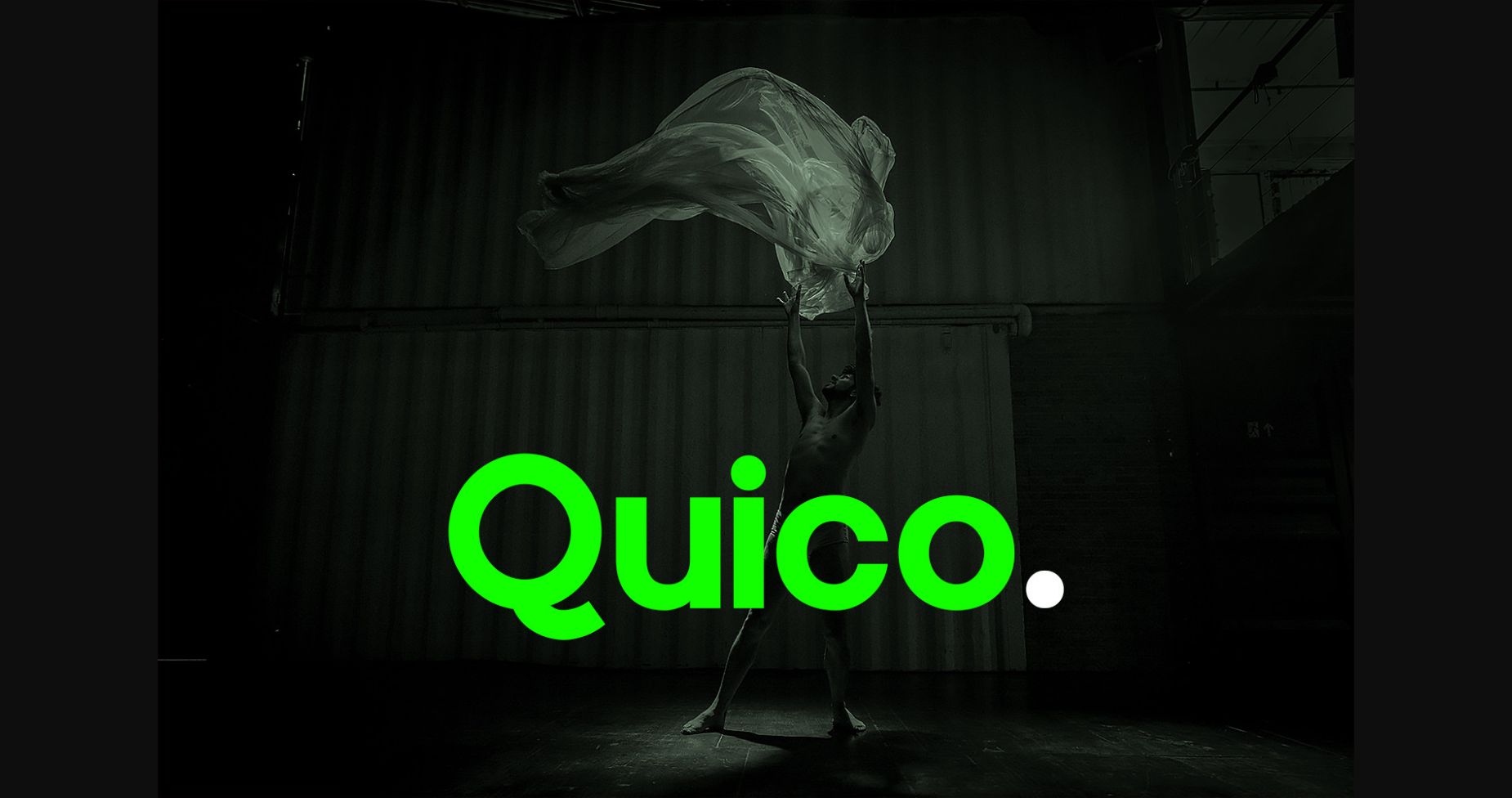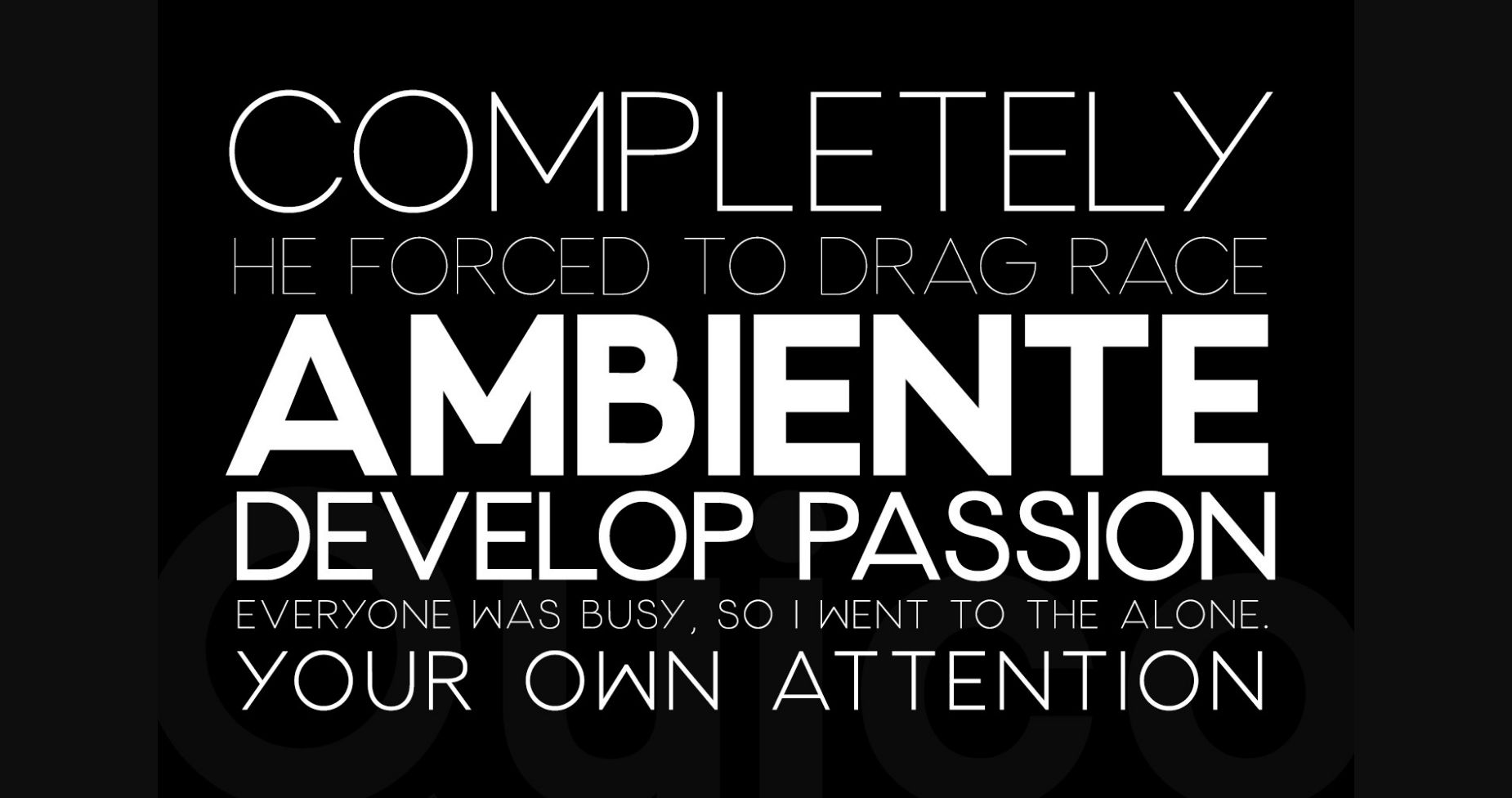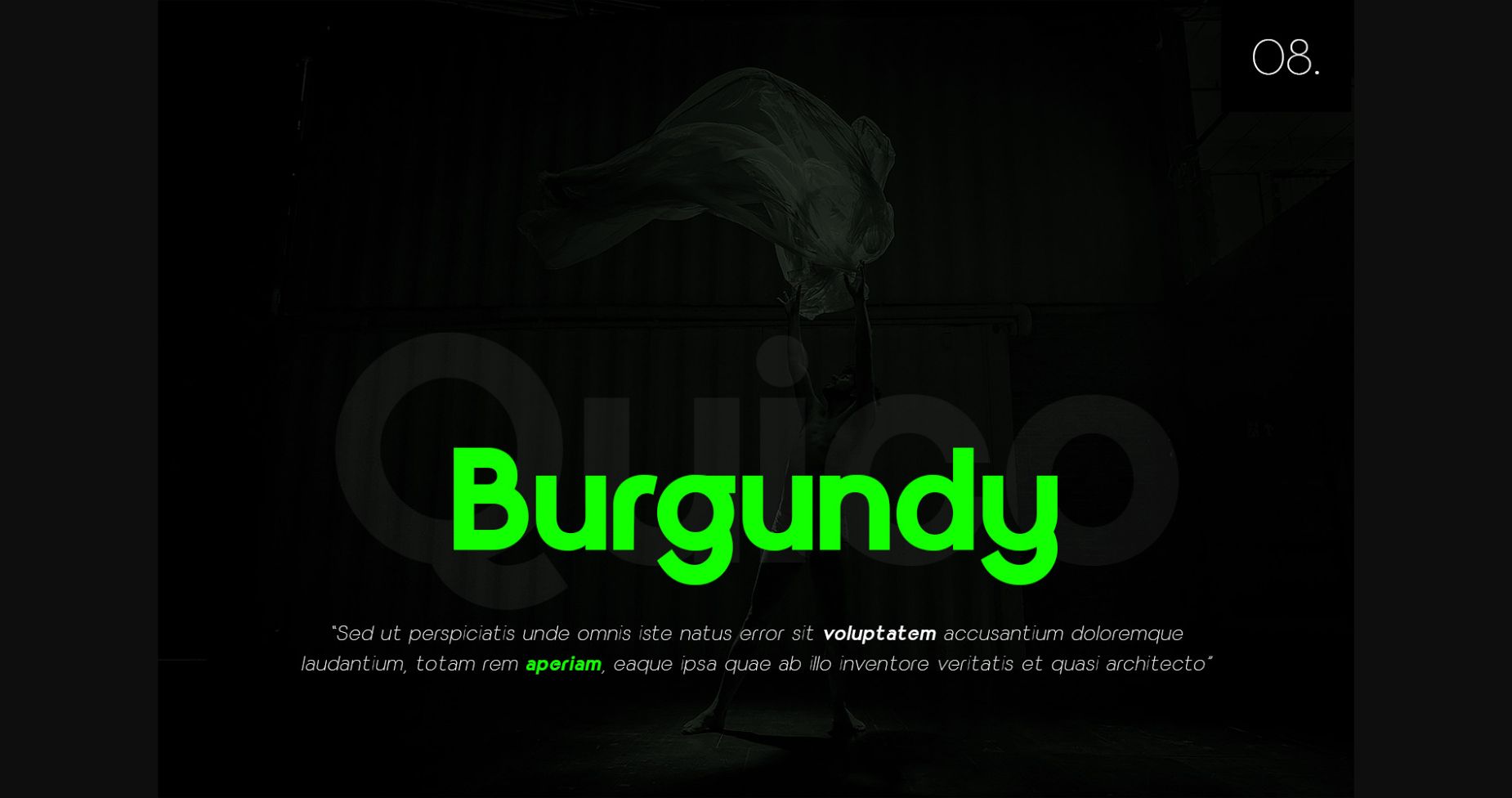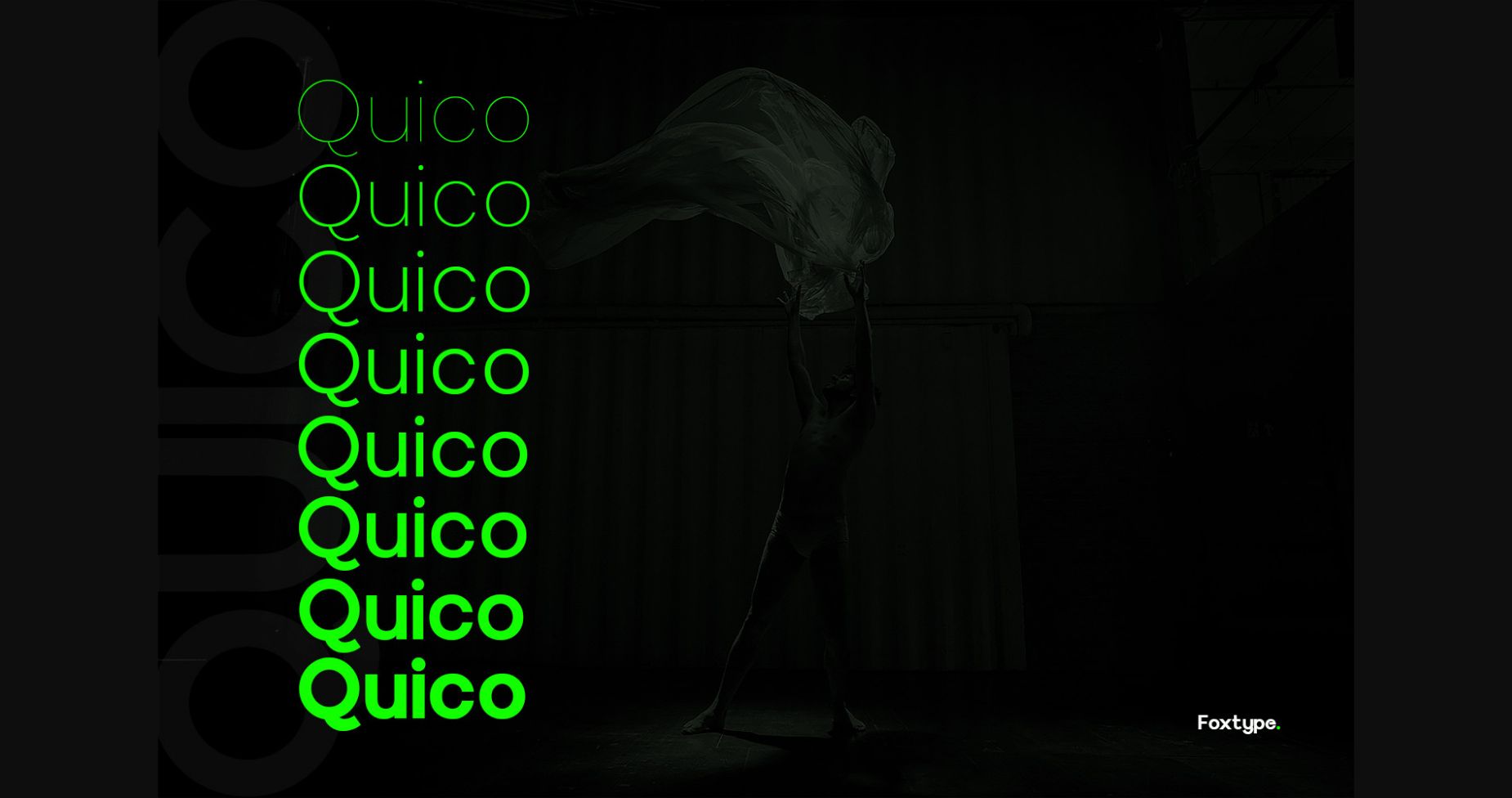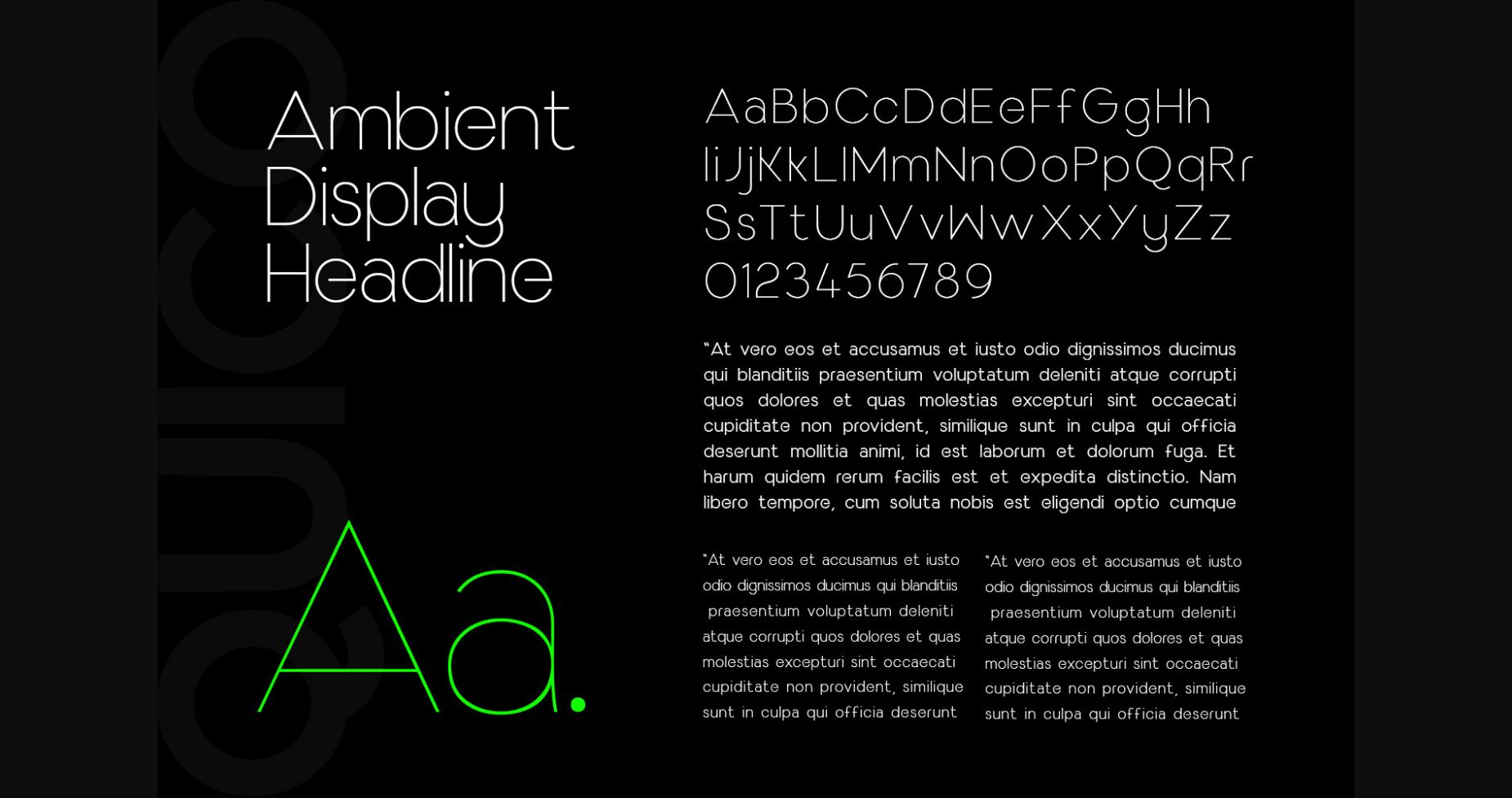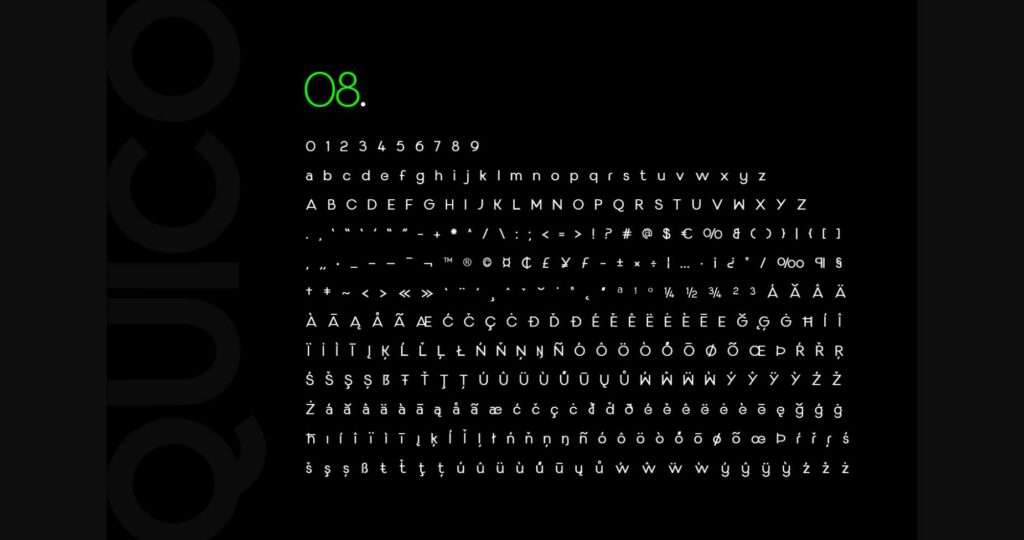
Quico is a cute and clean sans serif font. Add it confidently to your projects, and you will love the results. You can use it for various designs that require a modern, futuristic touch.